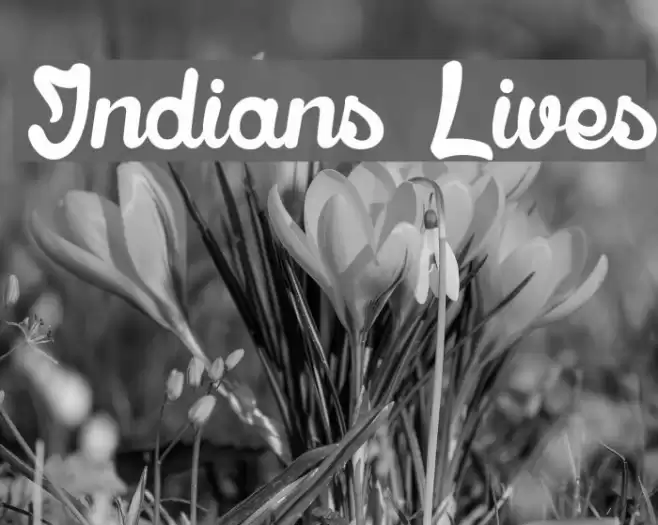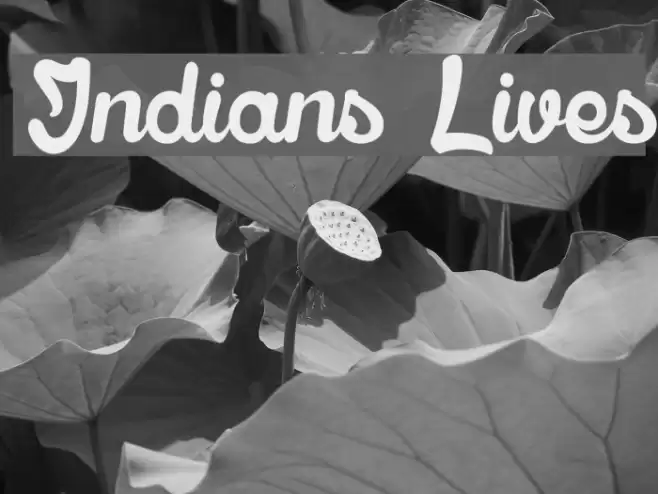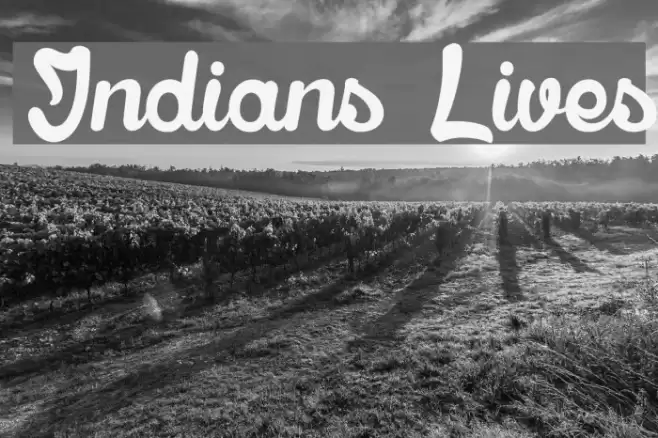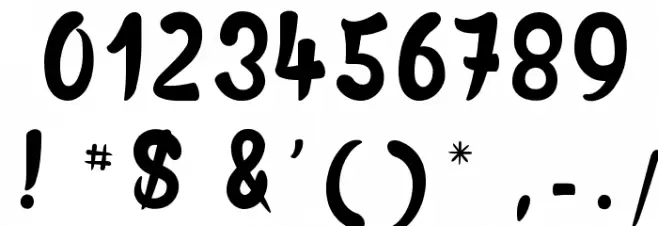
Indians Lives Font
Indians Lives Description
This font features a bold and playful script style with a handwritten appearance. The letters are rounded and connected, giving a sense of fluidity and movement. The uppercase letters maintain a consistent height, while the lowercase letters vary slightly in size, adding to the casual and informal feel. The numbers and special characters are designed to match the overall style, with a similar boldness and rounded edges. This font is well-suited for projects that require a friendly and approachable look.
A bold, playful script font with a handwritten style from Uncategorized fonts.
- Proposed Projects: Great for greeting cards, playful branding, children's books, and casual invitations.
- Overall Style: Playful, Casual
- Use Case: Logos, Invitations, Greeting Cards